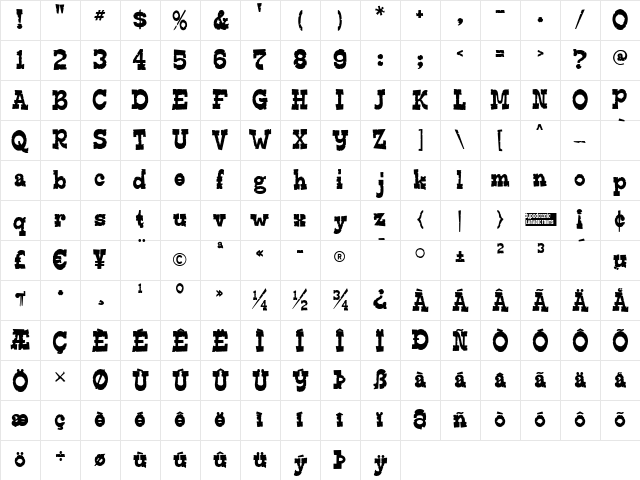
Complete Edmunds Distressed Regular glyph index. Displaying only characters natively supported by Edmunds Distressed Regular font.
Edmunds Distressed embraces imperfection - its rough, textured character adds raw authenticity to designs that want to feel lived-in and unconventional.
Pro Tip: Use Edmunds Distressed at larger sizes where the texture and irregularity of each letterform can be clearly seen - it loses its character at small sizes.